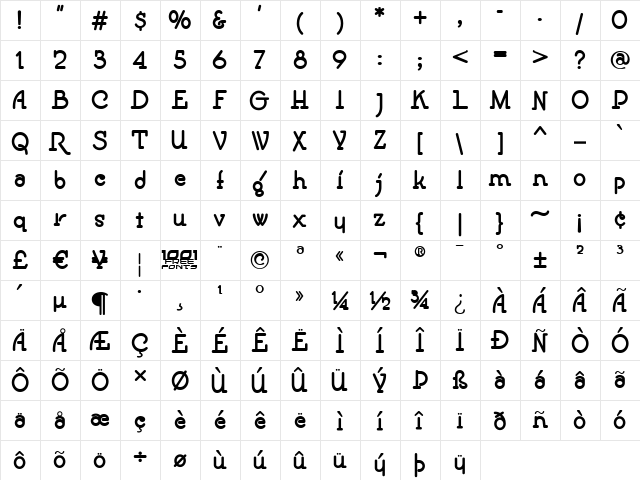
Speedball No1 NF Bold
Design Context for Speedball No1 NF Typeface
Speedball No1 NF takes a measured approach to typography — its balanced proportions and neutral character make it a reliable workhorse for both digital and print work. Its bold stroke weight gives it real presence on the page.